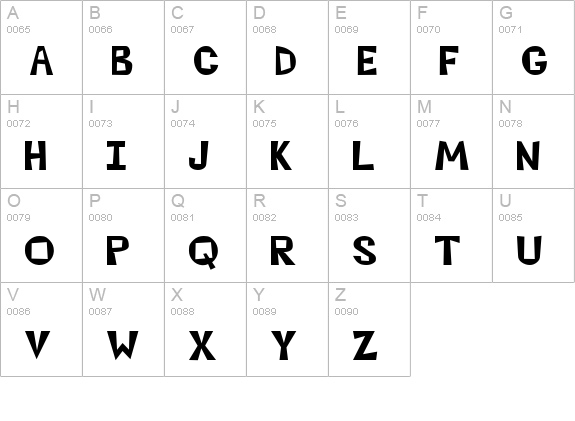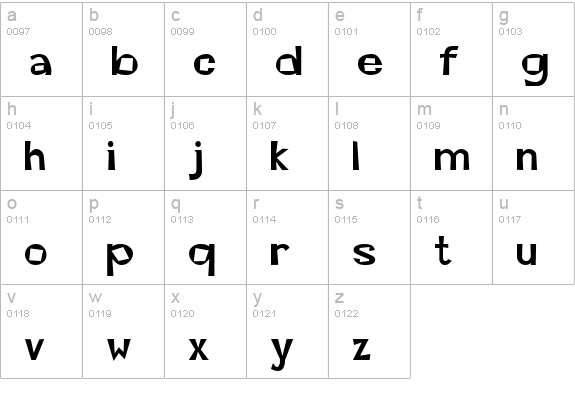
Beatsville Regular Font Details
Beatsville Regular is the standard, neutral variant in the Beatsville typeface family \xE2\x80\x94 well suited to general body text, paragraphs, and standard typographic work.
Introducing Beatsville Regular font, a modern and stylish typeface that exudes creativity and sophistication. Designed with clean lines and a sleek appearance, this font is perfect for a wide range of design projects, from branding to advertising to packaging. The versatility of Beatsville Regular makes it a must-have addition to any designer's toolkit. What sets Beatsville Regular apart is its unique blend of classic elegance and contemporary flair. The smooth curves and sharp angles of each letter create a sense of dynamism and energy, while still maintaining a sense of classic refinement. Whether you're creating a logo for a high-end fashion brand or designing a sleek website for a tech startup, Beatsville Regular is sure to make a lasting impression. And the best part? Beatsville Regular is completely free to download at FontsMarket.com. That's right, you can add this stunning font to your collection without spending a dime. So why wait? Elevate your designs with the timeless beauty of Beatsville Regular today.